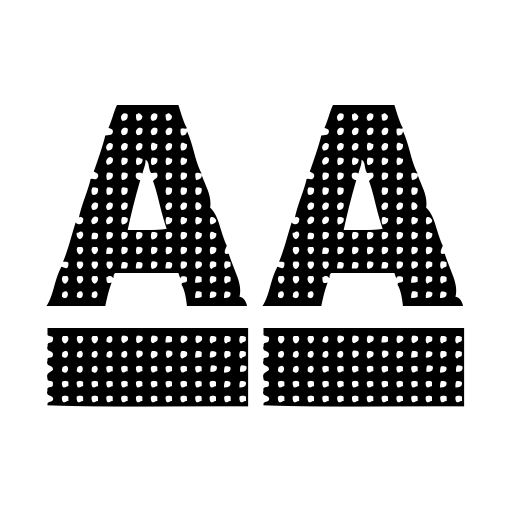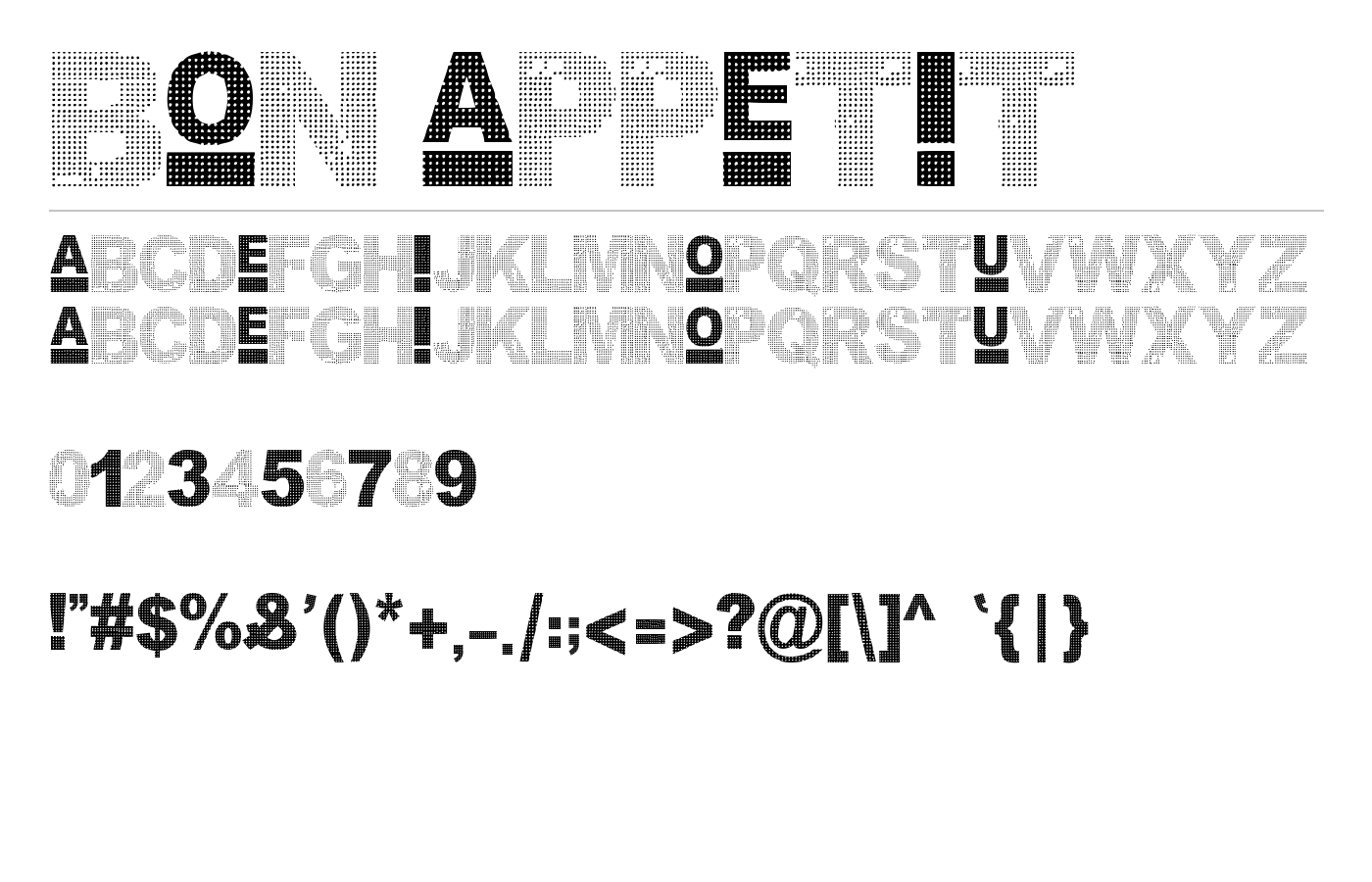
Bon Appetit is a bold, display sans serif font characterized by its striking halftone dot pattern that creates a dynamic, textured effect. Its uppercase letters feature strong geometric shapes with high contrast between solid and dotted areas, making it perfect for eye-catching headlines, posters, or branding that aims to convey a modern, playful vibe with a retro touch. This font works best in large sizes where its unique dot shading can add depth and visual interest.
Bon Appetit Font